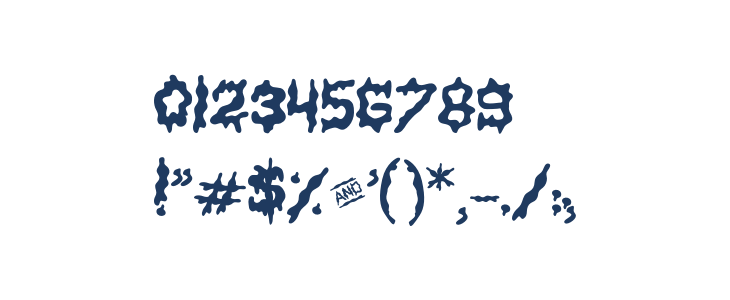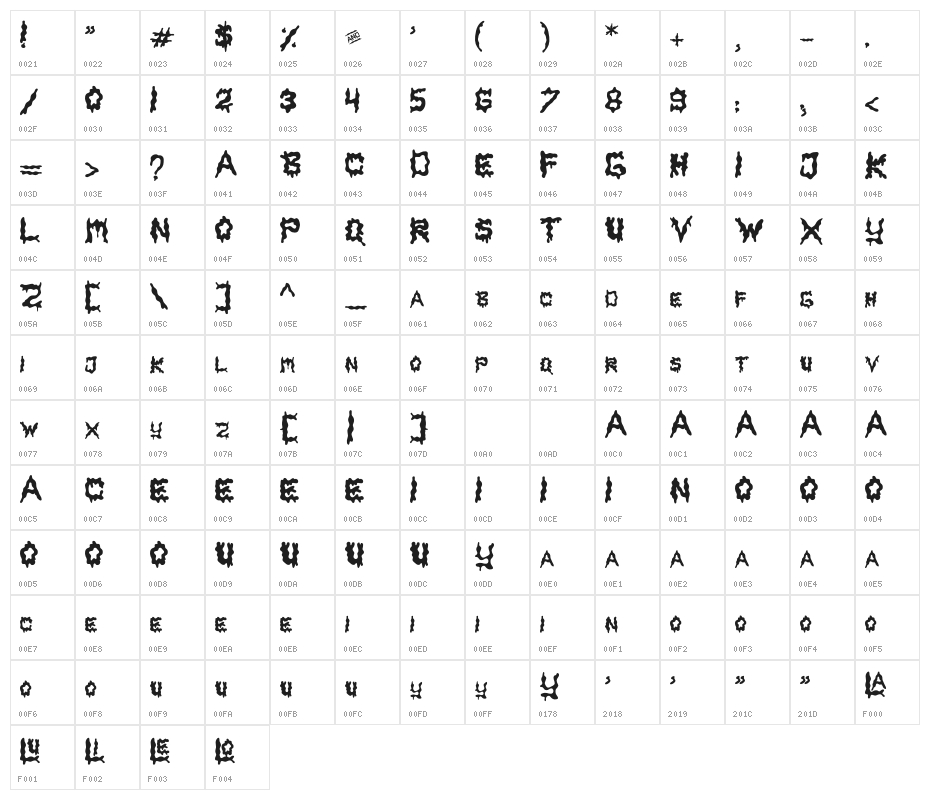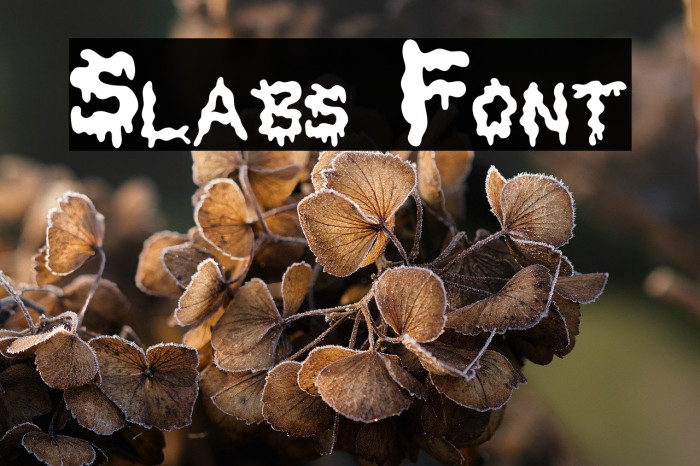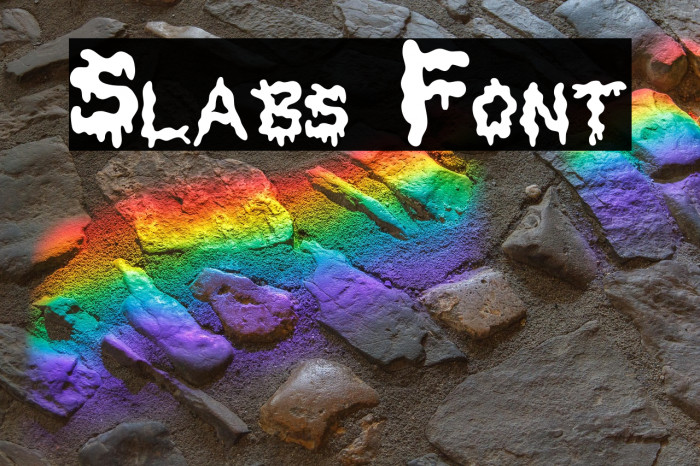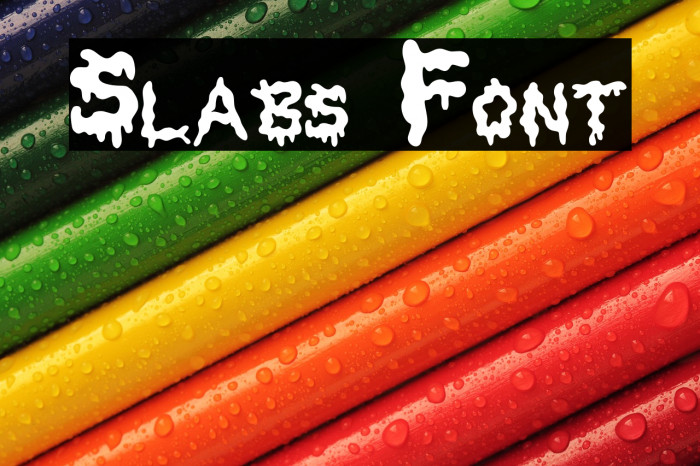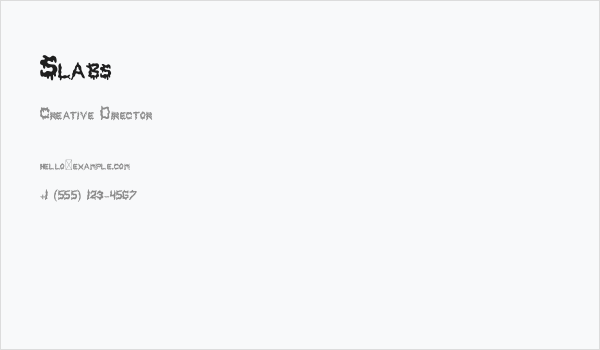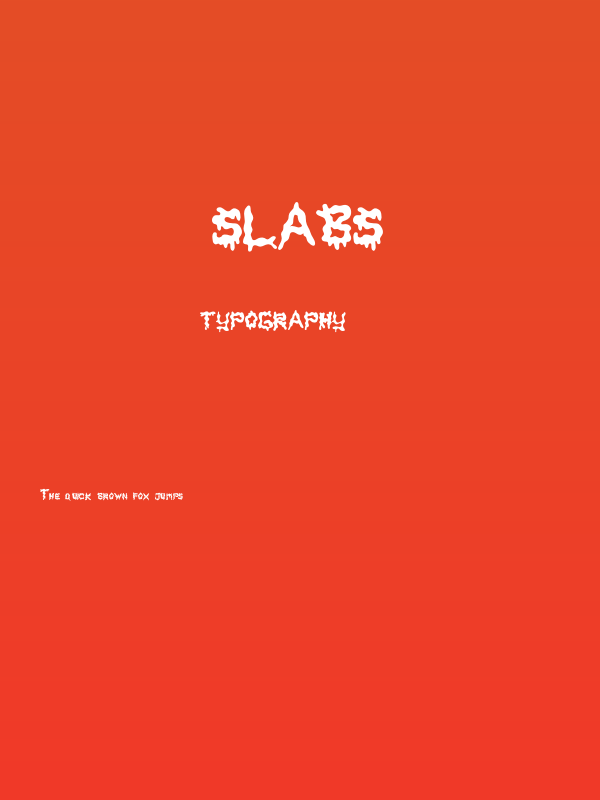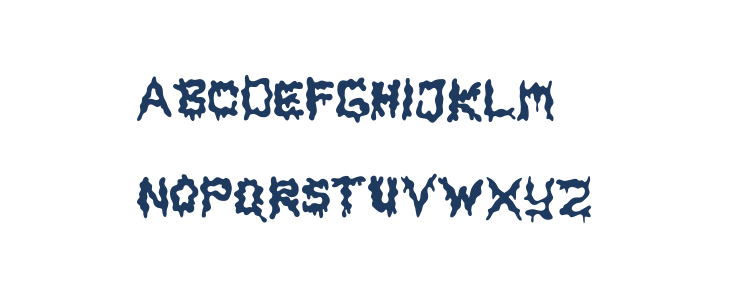
Slabs Font
Slabs Description
This font features a bold, dripping style that evokes a sense of horror or the supernatural. The characters appear as if they are melting or oozing, with irregular edges and a dynamic, fluid appearance. This design choice gives the font a unique, eye-catching quality that is both playful and slightly eerie. The uppercase and lowercase letters maintain a consistent style, with numbers and special characters following the same theme. The overall effect is striking and memorable, making it ideal for projects that require a dramatic or spooky aesthetic.
Proposed ProjectsIdeal for Halloween-themed graphics, horror movie posters, haunted house flyers, or any project needing a spooky, dramatic touch.